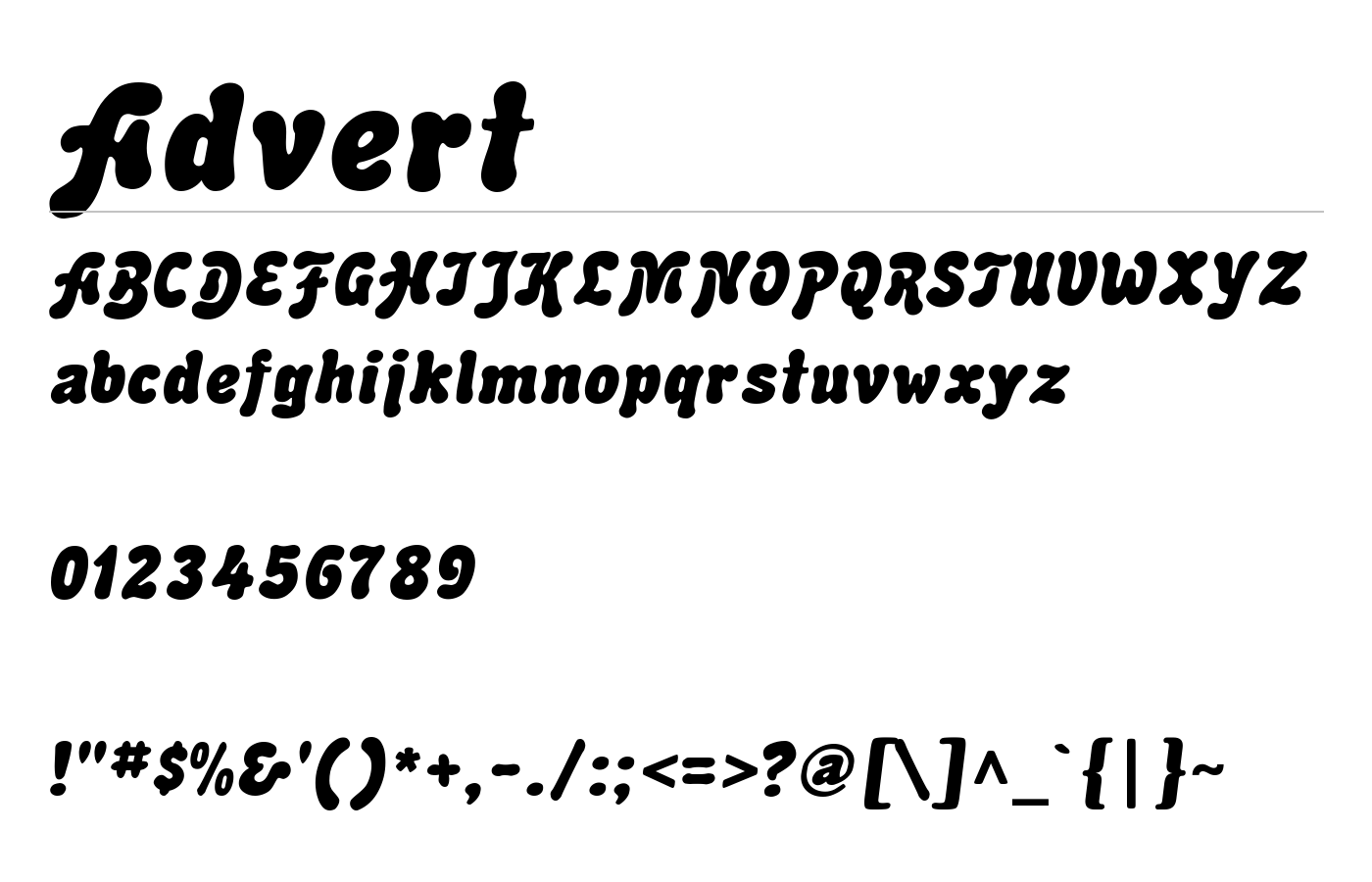
Advert Font is a bold, playful script-style typeface with a chunky, rounded appearance that gives it a friendly and approachable feel. Its unique, slightly irregular letterforms and smooth curves make it ideal for eye-catching headlines, branding, and designs that want to convey personality and charm with a retro-inspired vibe. This font works especially well in advertising, packaging, or any creative project needing a fun and memorable touch.
Advert Font